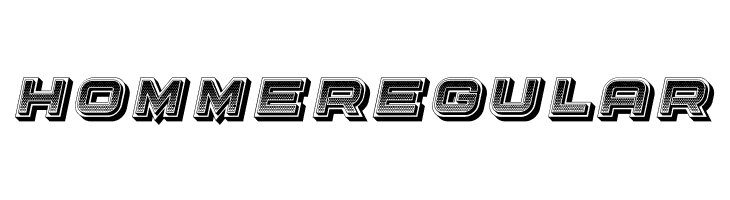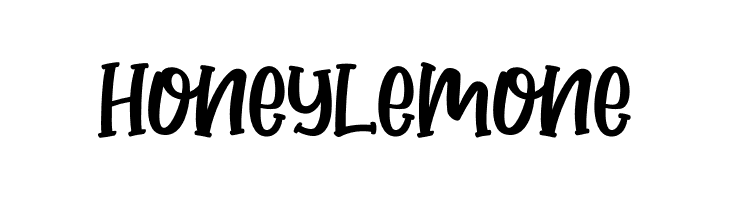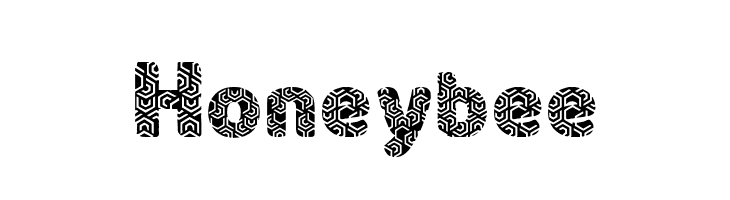
A bold, flowing script font with smooth, rounded edges and a slight slant.
A bold, three-dimensional font with a textured, shadowed design.
A bold, expressive script font with fluid, sweeping strokes and a modern, stylish appearance.
A playful, bold font with rounded, thick strokes and a whimsical style.
A bold, decorative font with intricate, maze-like patterns.
A playful, whimsical font with rounded and curly elements, perfect for creative projects.
A playful and elegant script font with dynamic contrast and fluidity.
A playful handwritten font with a casual and friendly style.
A bold, flowing script font with a playful and energetic style.
A playful, hand-drawn font with bold, rounded strokes and a whimsical style.